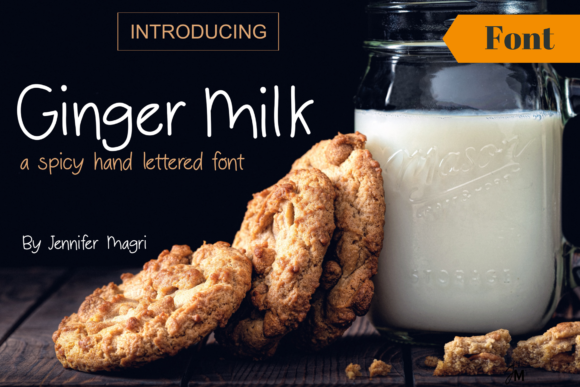
Discover the Enchanting World of Ginger Milk Font – Where Imagination Flows Effortlessly!
Embark on a typographic journey like no other with Ginger Milk Font. This enchanting script, crafted by the visionary Jennifer Magri Designs, is a testament to boundless imagination and versatility. As the perfect companion for Android TTF, Ginger Milk unlocks a world of creative possibilities, inspiring you to craft stunning designs that resonate with authenticity and charm.
With Ginger Milk Font as your canvas, your imagination becomes the guiding force, shaping your designs into captivating masterpieces. Its friendly and fresh style effortlessly blends with any design concept, allowing you to express your unique vision with ease. Whether you're crafting whimsical invitations, heartwarming greeting cards, or captivating social media posts, Ginger Milk Font transforms your words into visual poetry.
Step into a world where the written word dances with elegance and grace. Ginger Milk Font's beautifully flowing script adds a touch of magic to every letter, enchanting your designs with an irresistible allure. Its versatility knows no bounds, making it the ideal choice for a myriad of projects, from personal journaling to professional presentations.
Embrace the power of Ginger Milk Font and let your creativity soar. Its captivating charm will captivate your audience, leaving an unforgettable impression that lingers long after the last page is turned. Join the legions of satisfied users who have discovered the transformative power of this extraordinary font. With Ginger Milk Font, the possibilities are endless – unleash your imagination and witness the birth of truly remarkable designs!